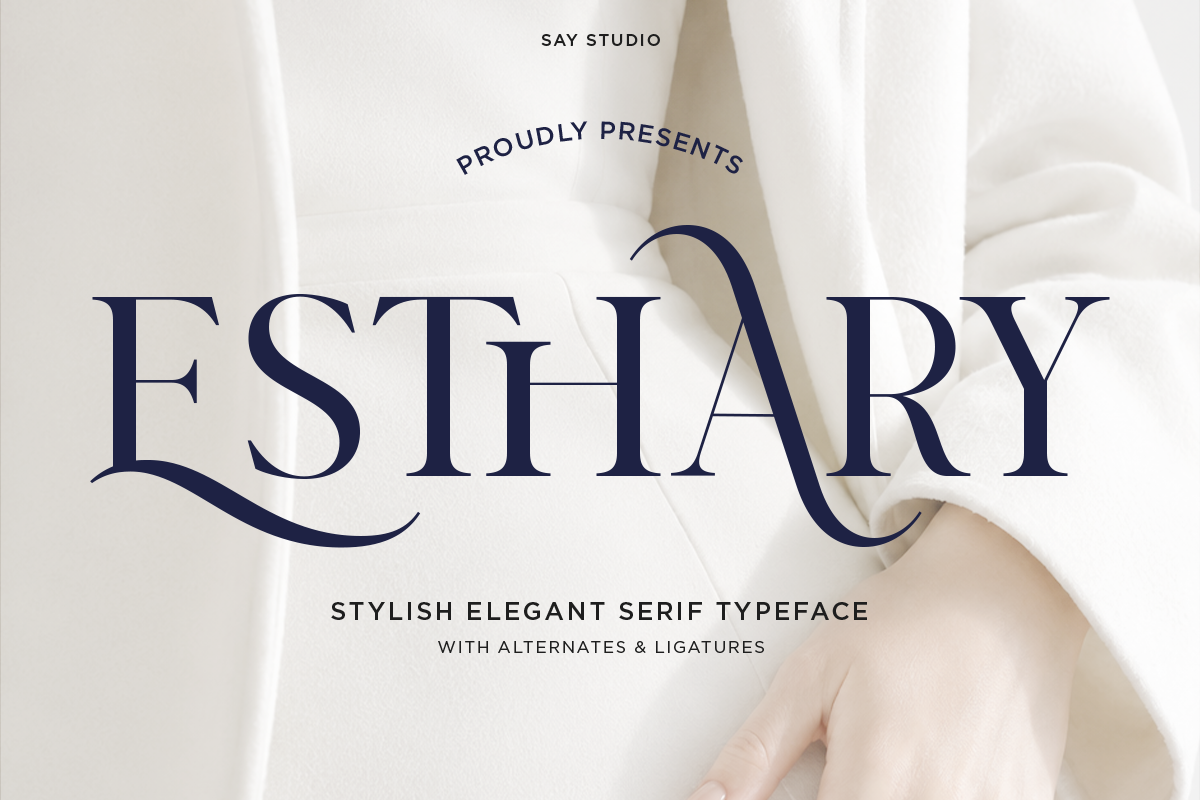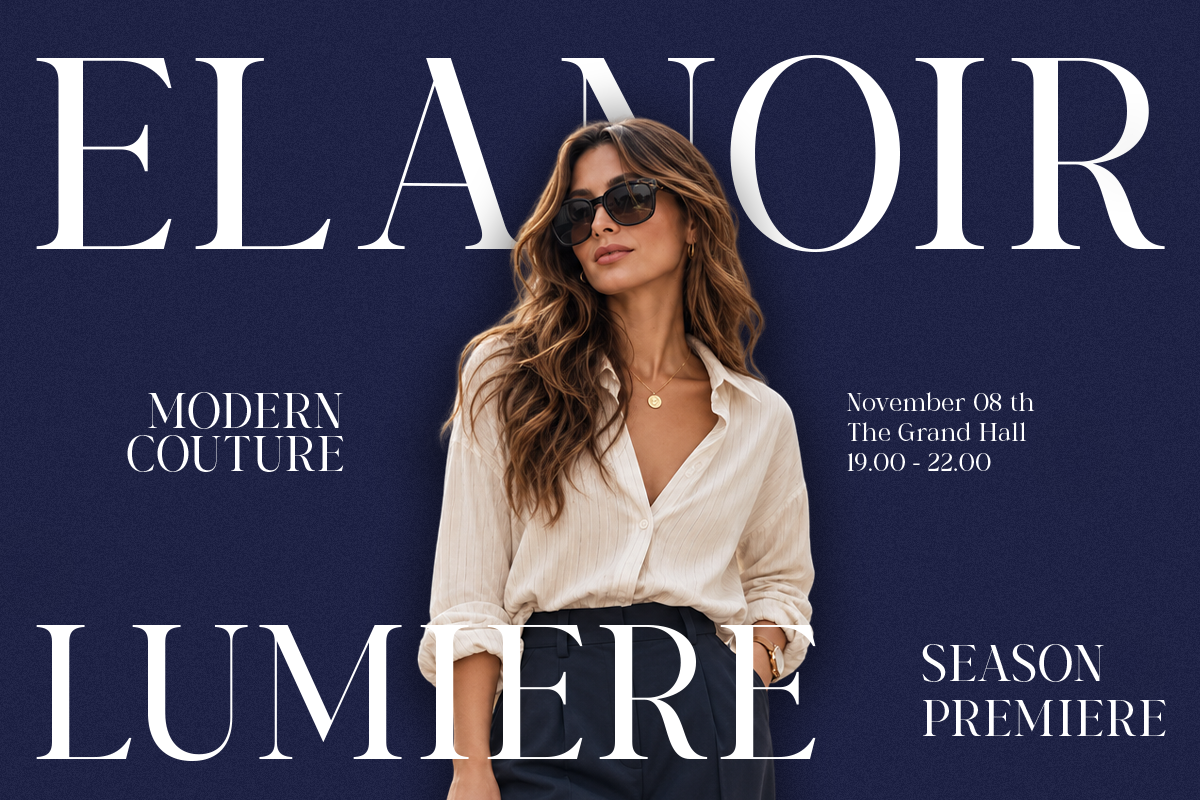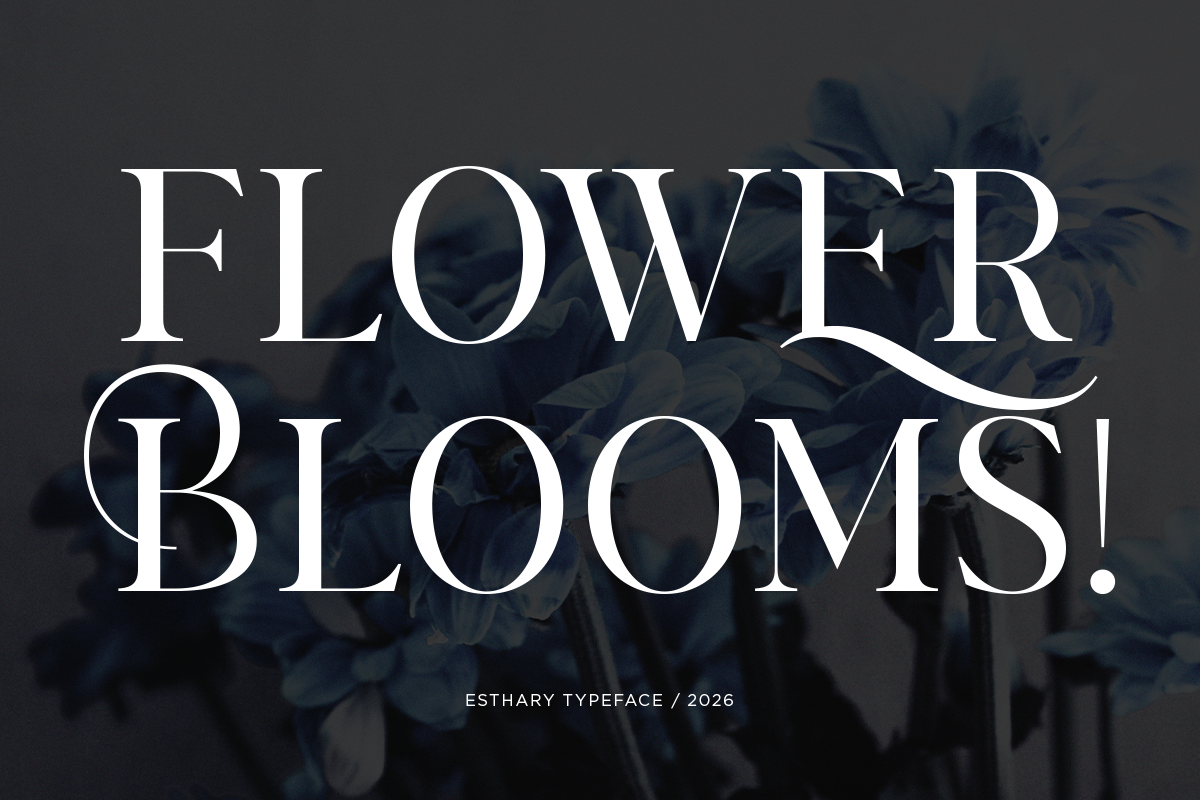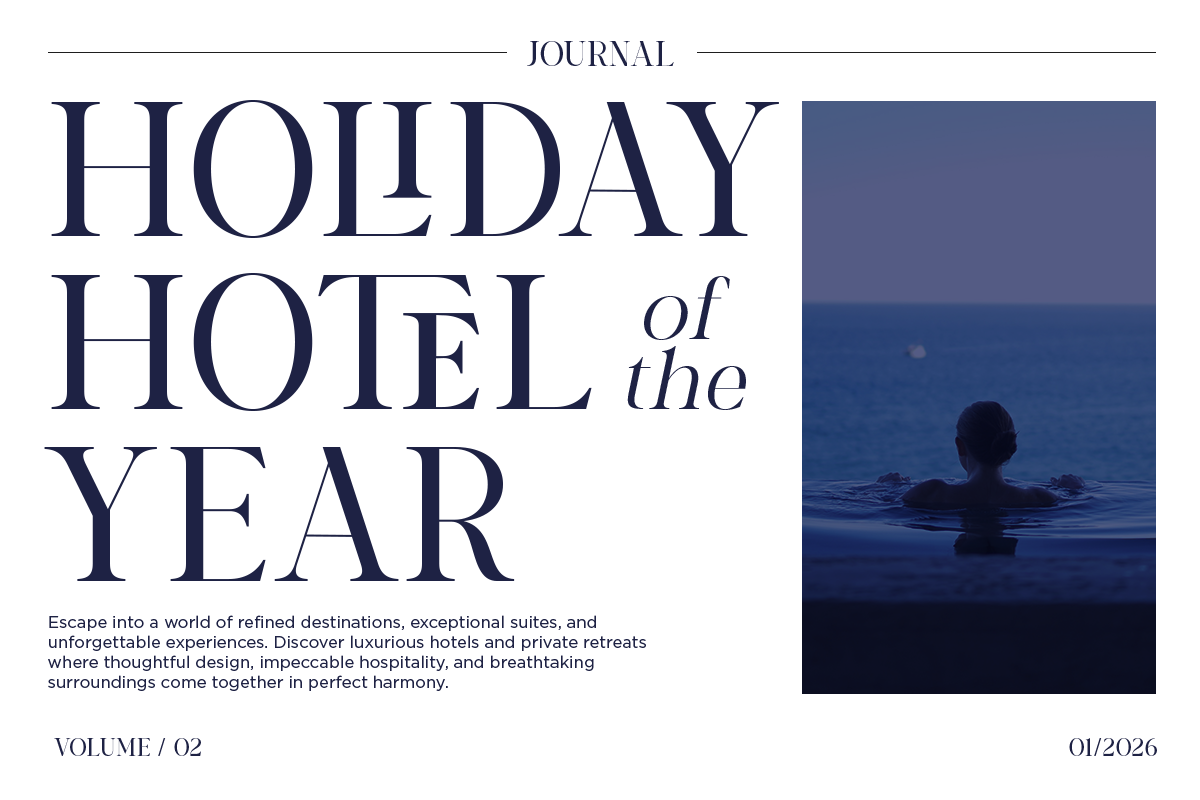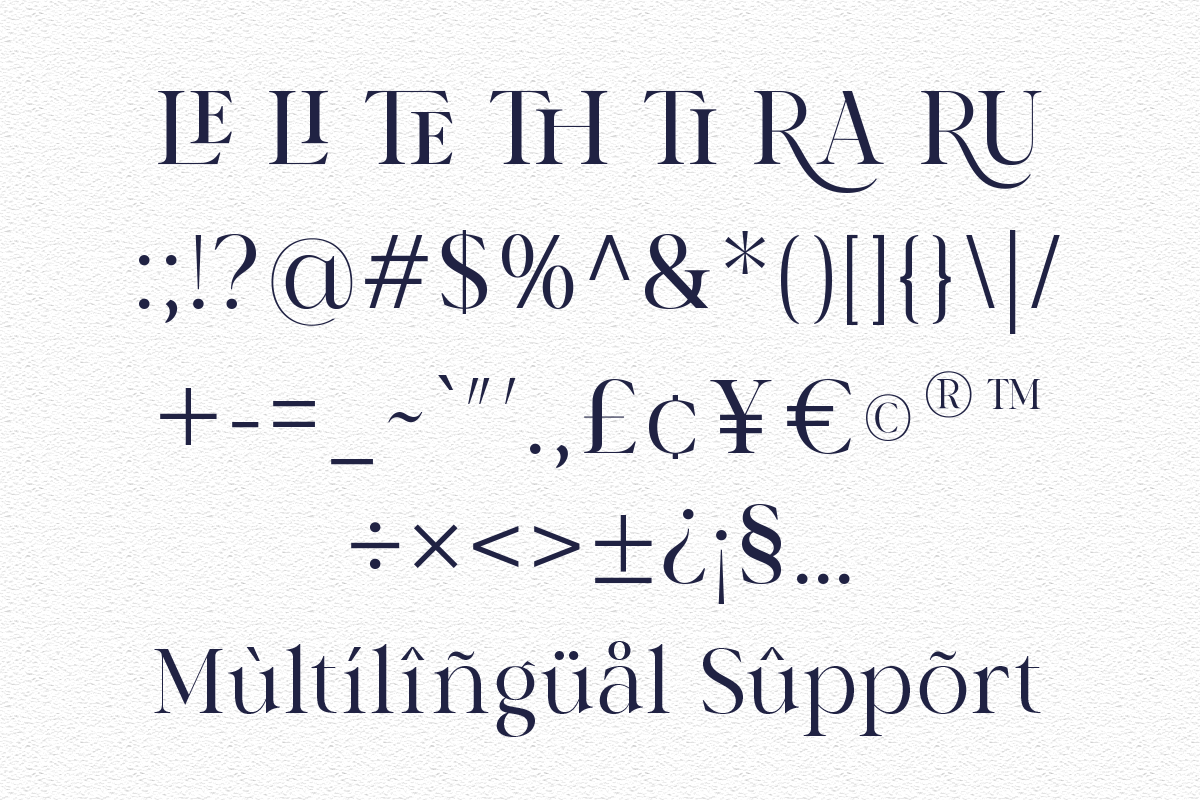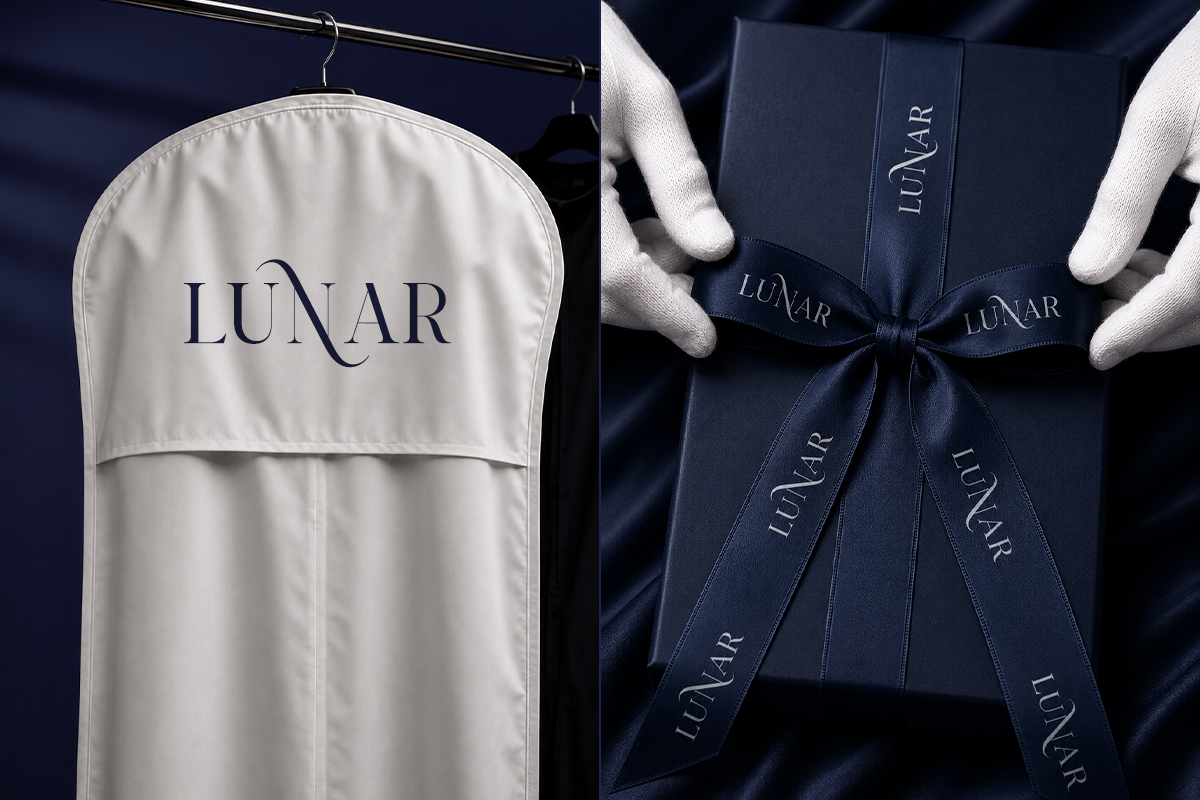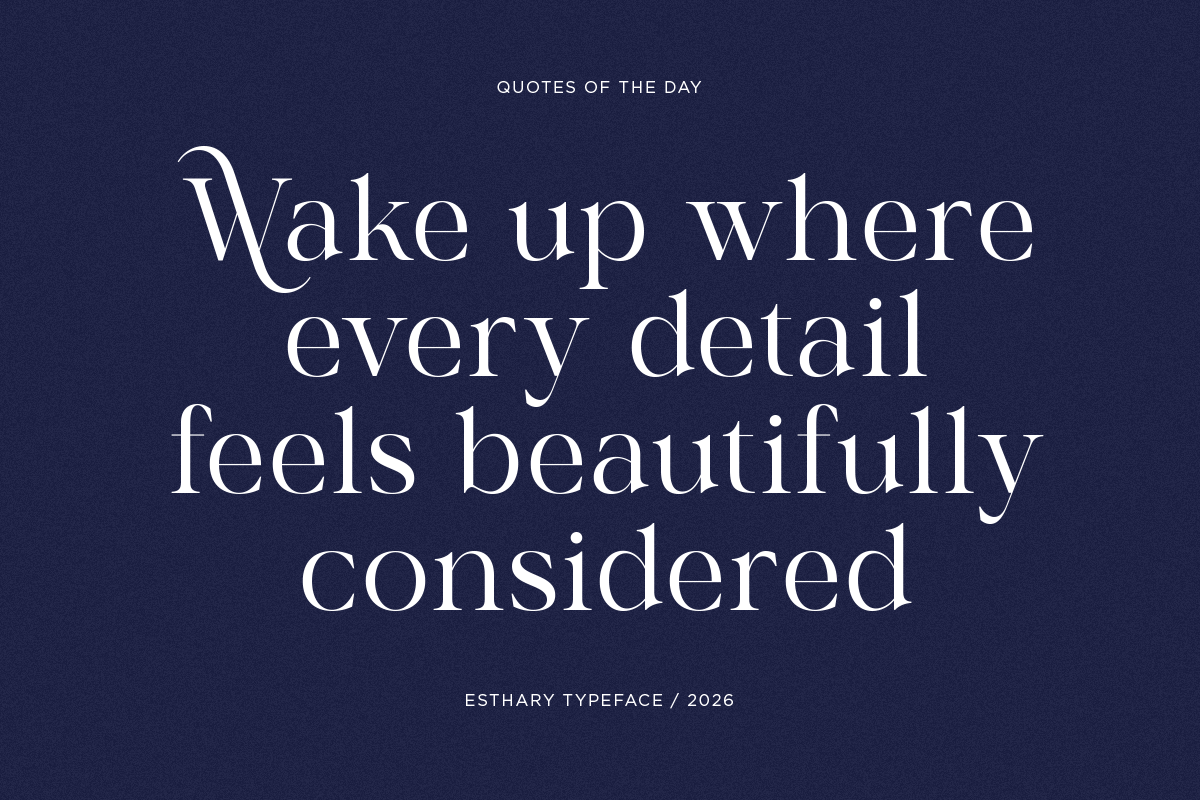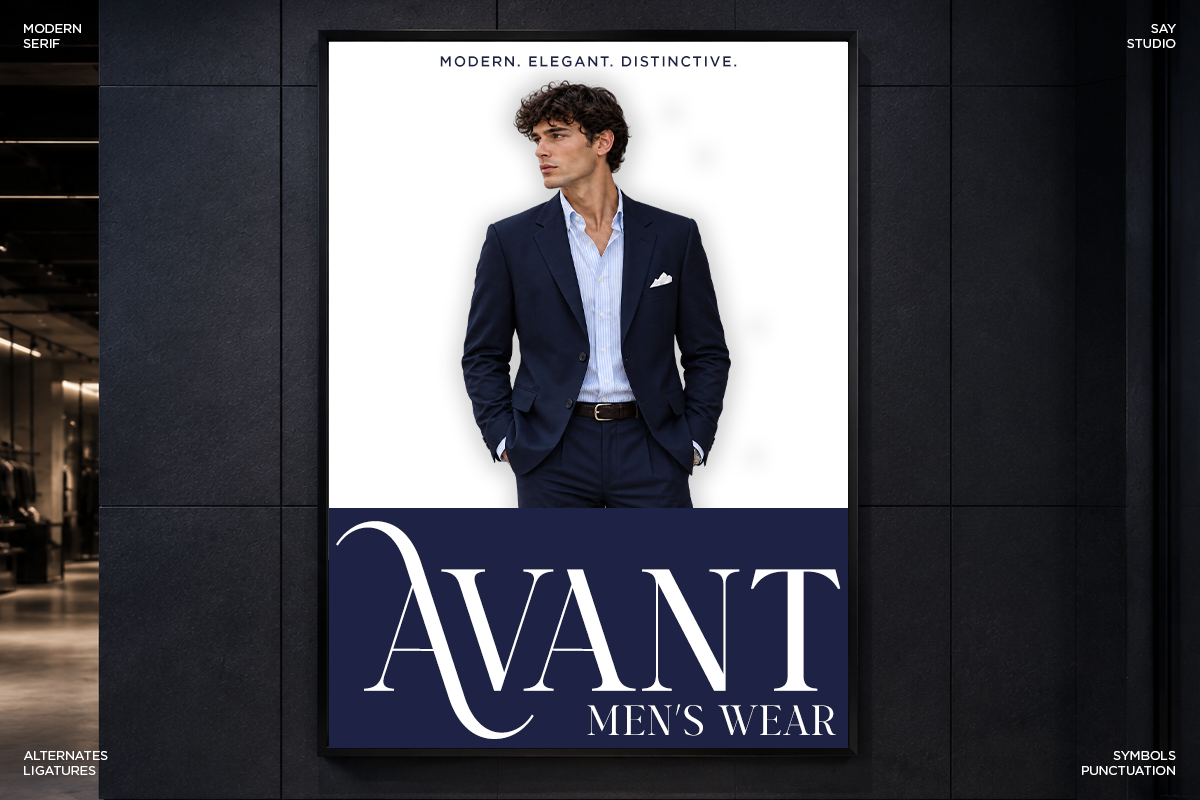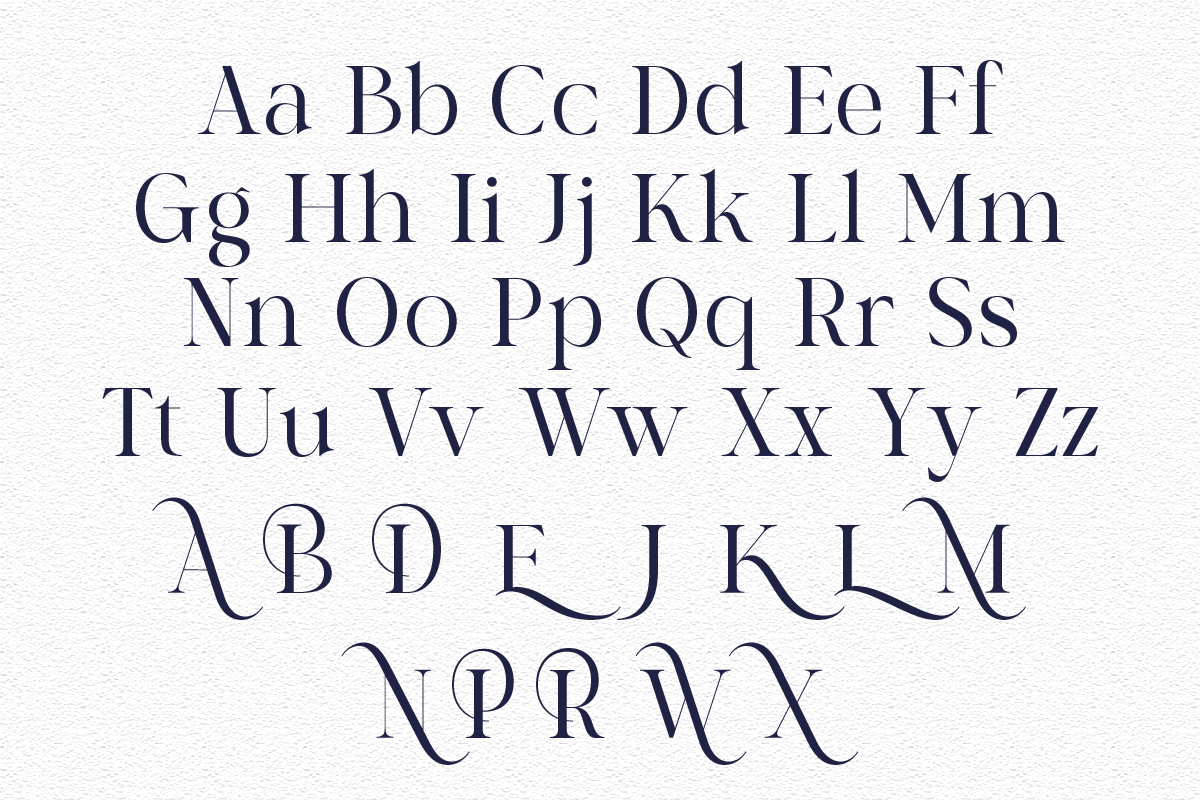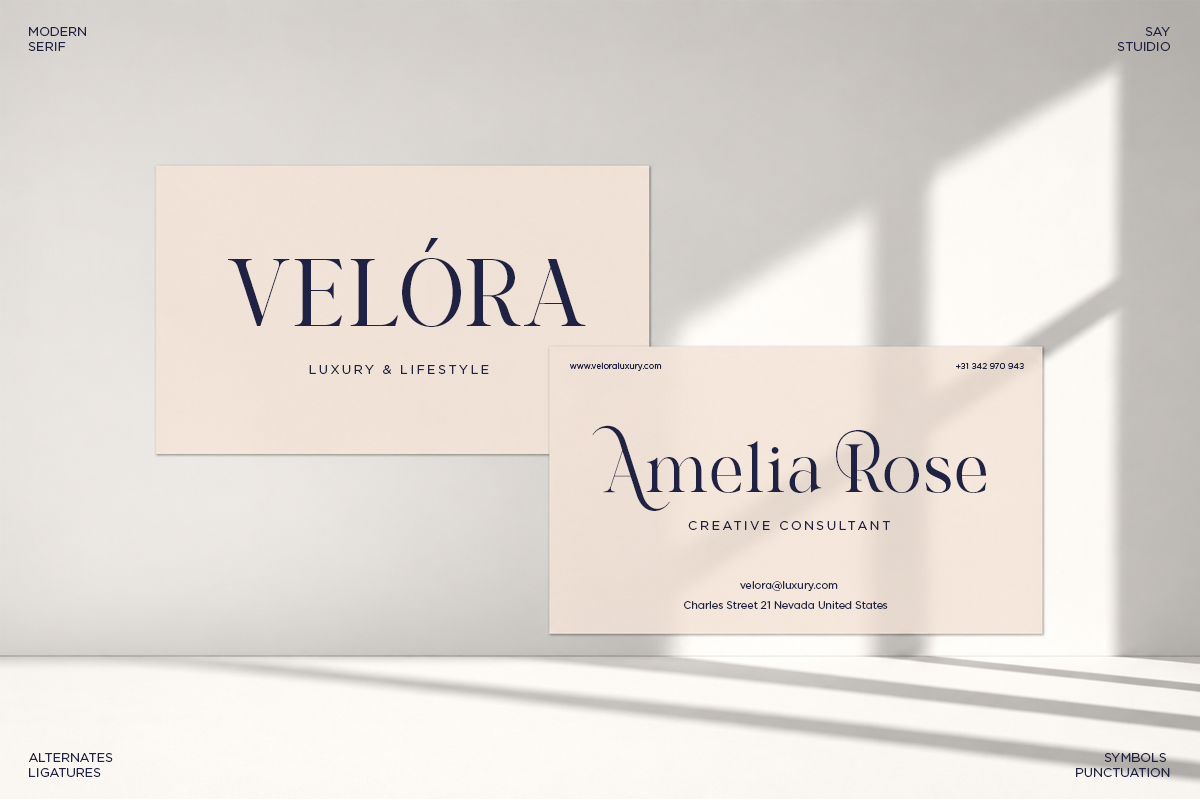
Stylish Elegant Serif Font - Esthary
Esthary is a stylish elegant serif typeface designed to bring a sophisticated and graceful character to your creative projects. Featuring high-contrast letterforms, refined proportions, distinctive details, and expressive alternate characters, Esthary creates an editorial and luxurious visual impression.
Perfect for fashion magazines, luxury branding, beauty campaigns, editorial layouts, wedding invitations, cosmetics, perfume packaging, boutique identities, logos, headlines, posters, and social media designs. Its elegant personality works beautifully for both minimalist compositions and sophisticated statement typography.
Esthary includes a carefully crafted character set with uppercase and lowercase letters, numerals, punctuation, multilingual support, and stylistic alternates/ligatures, making it suitable for branding, print, and digital design projects.
Regular and Italic
Stylistic Ligatures
Special Alternates
Number, Symbol, and Punctuation